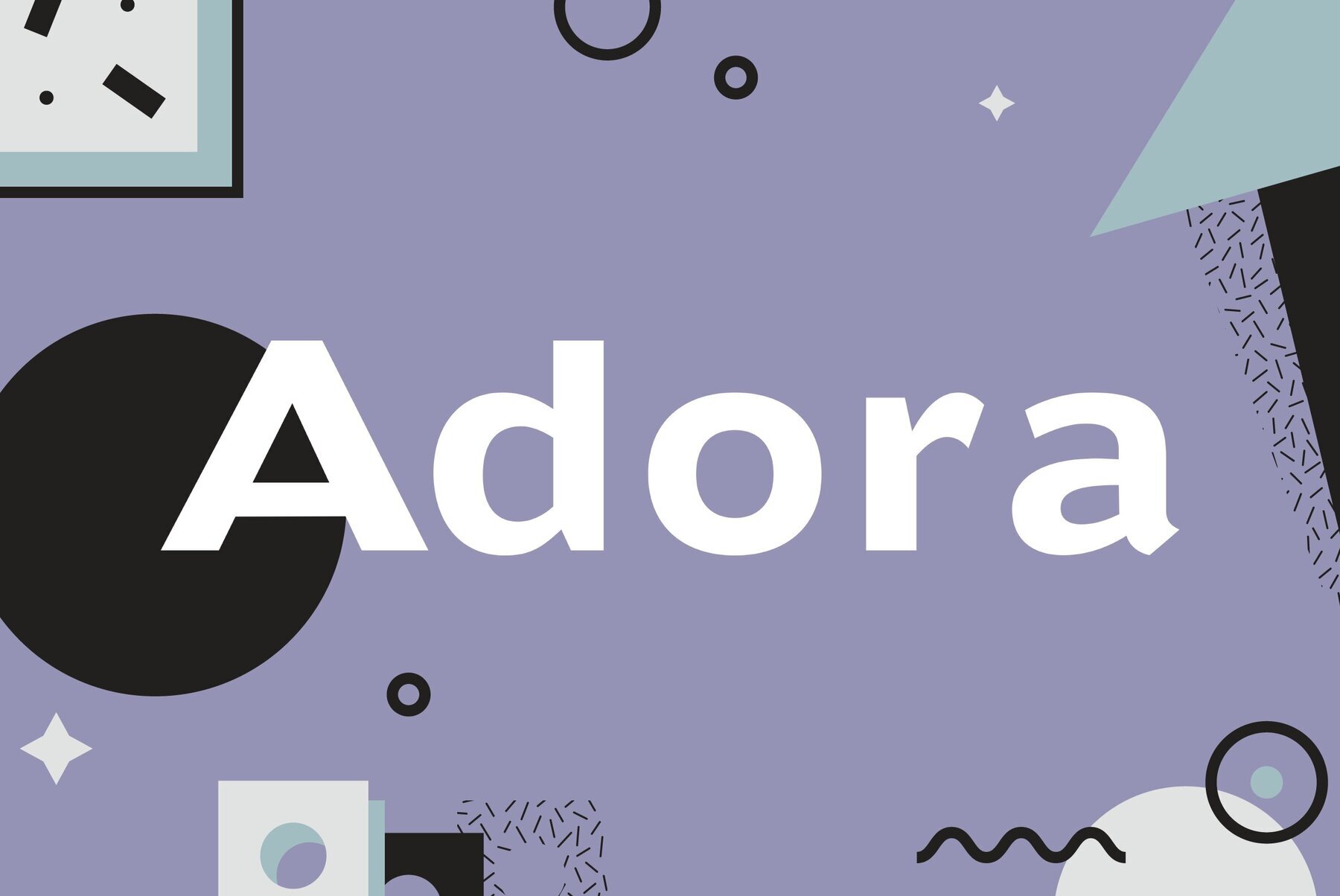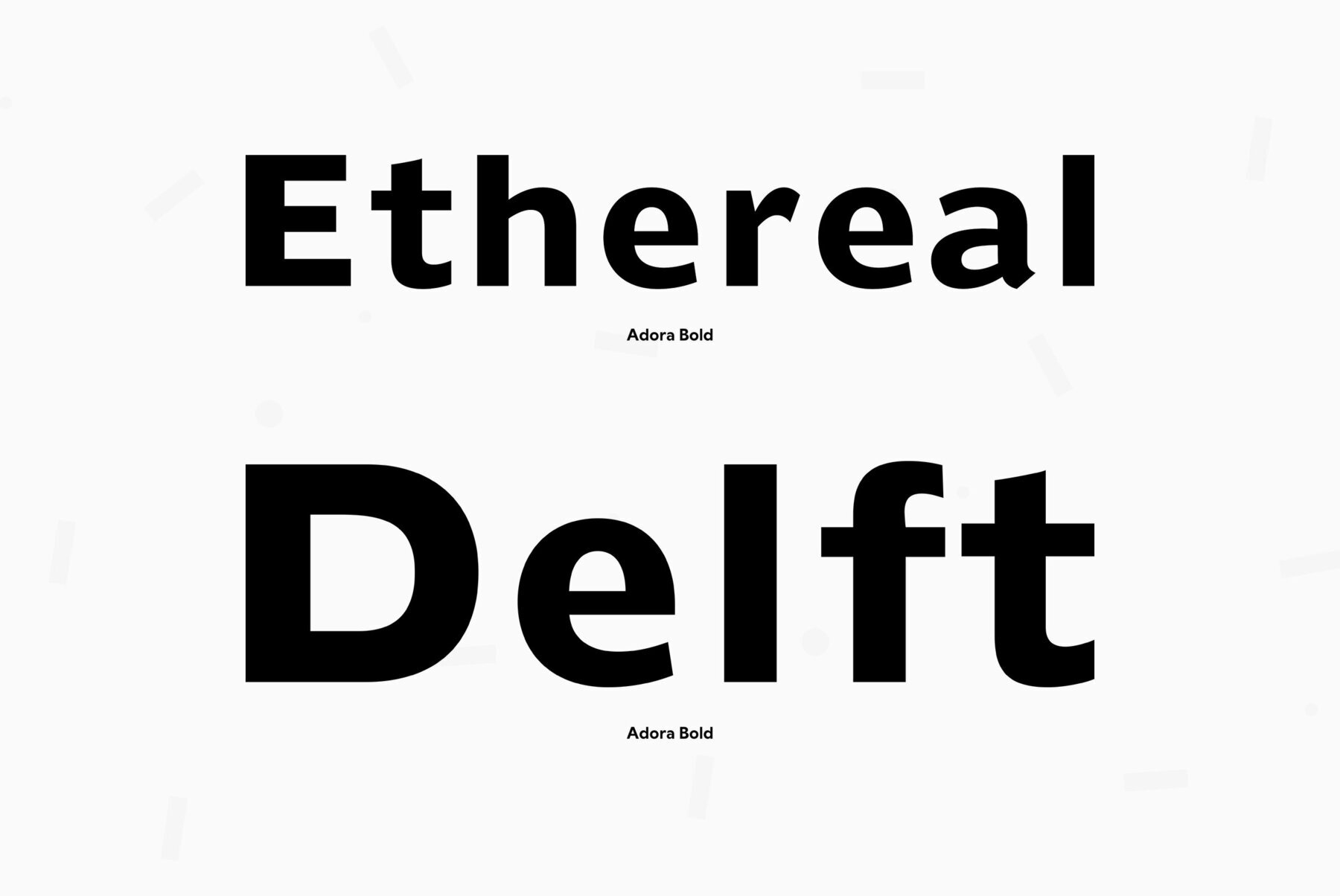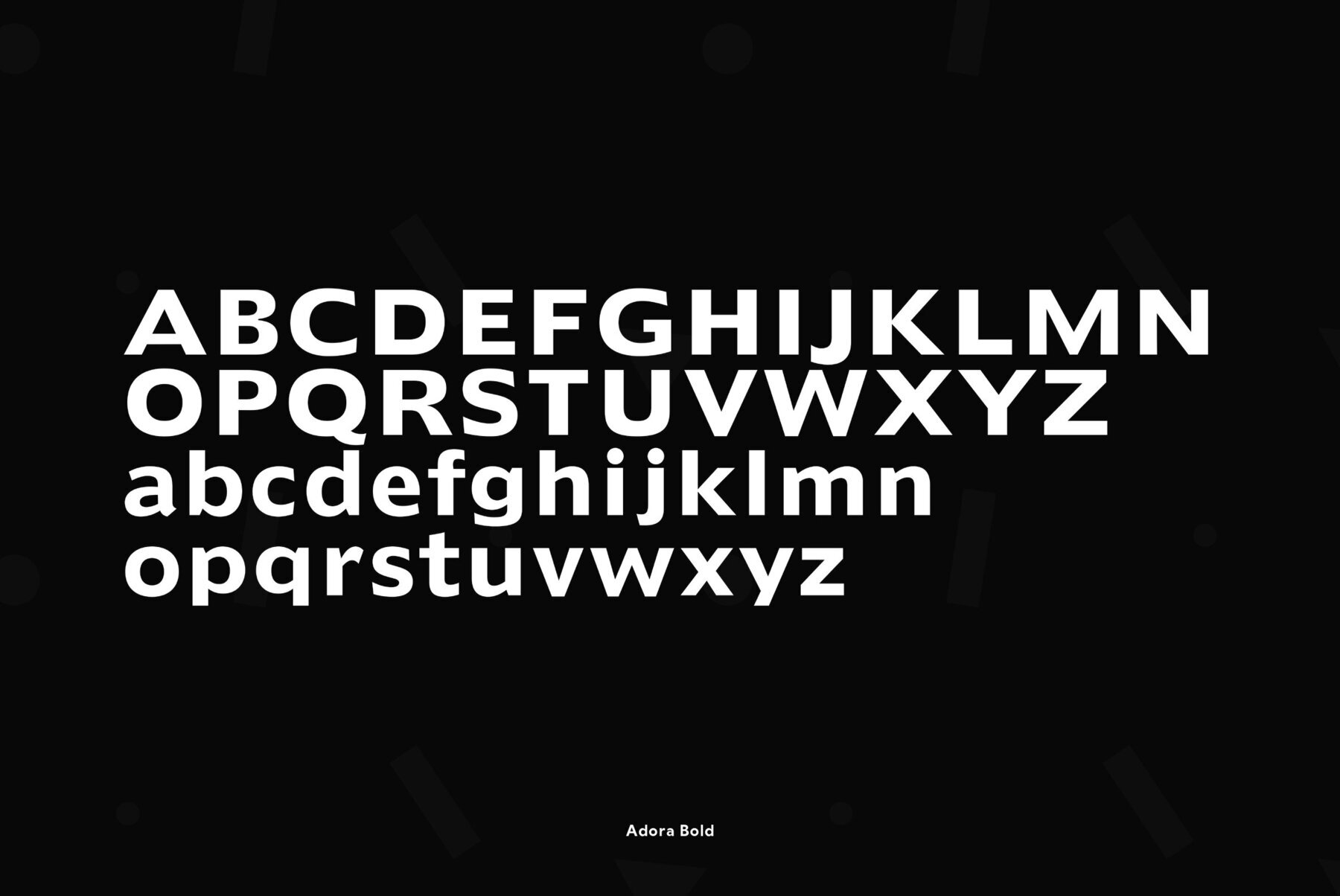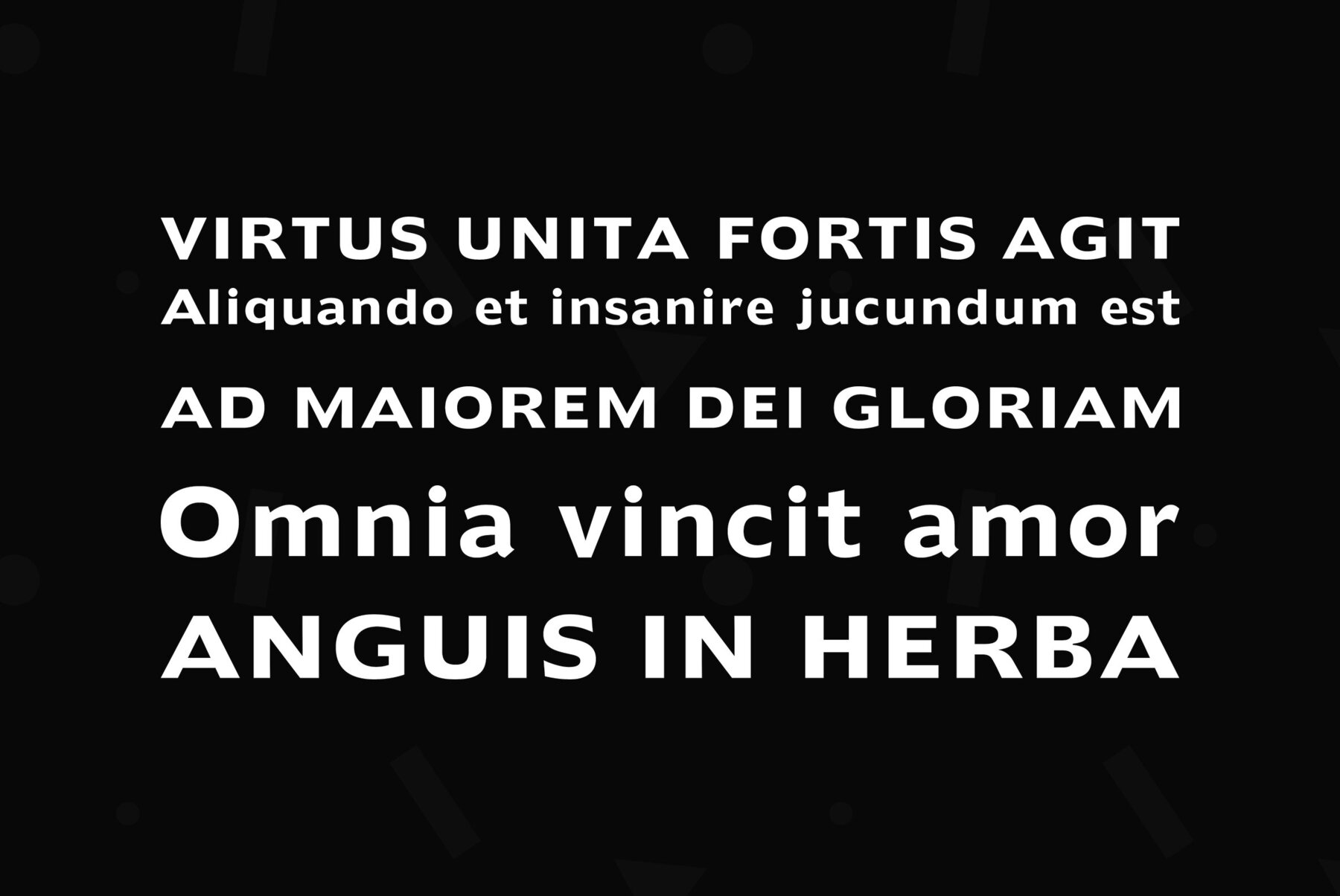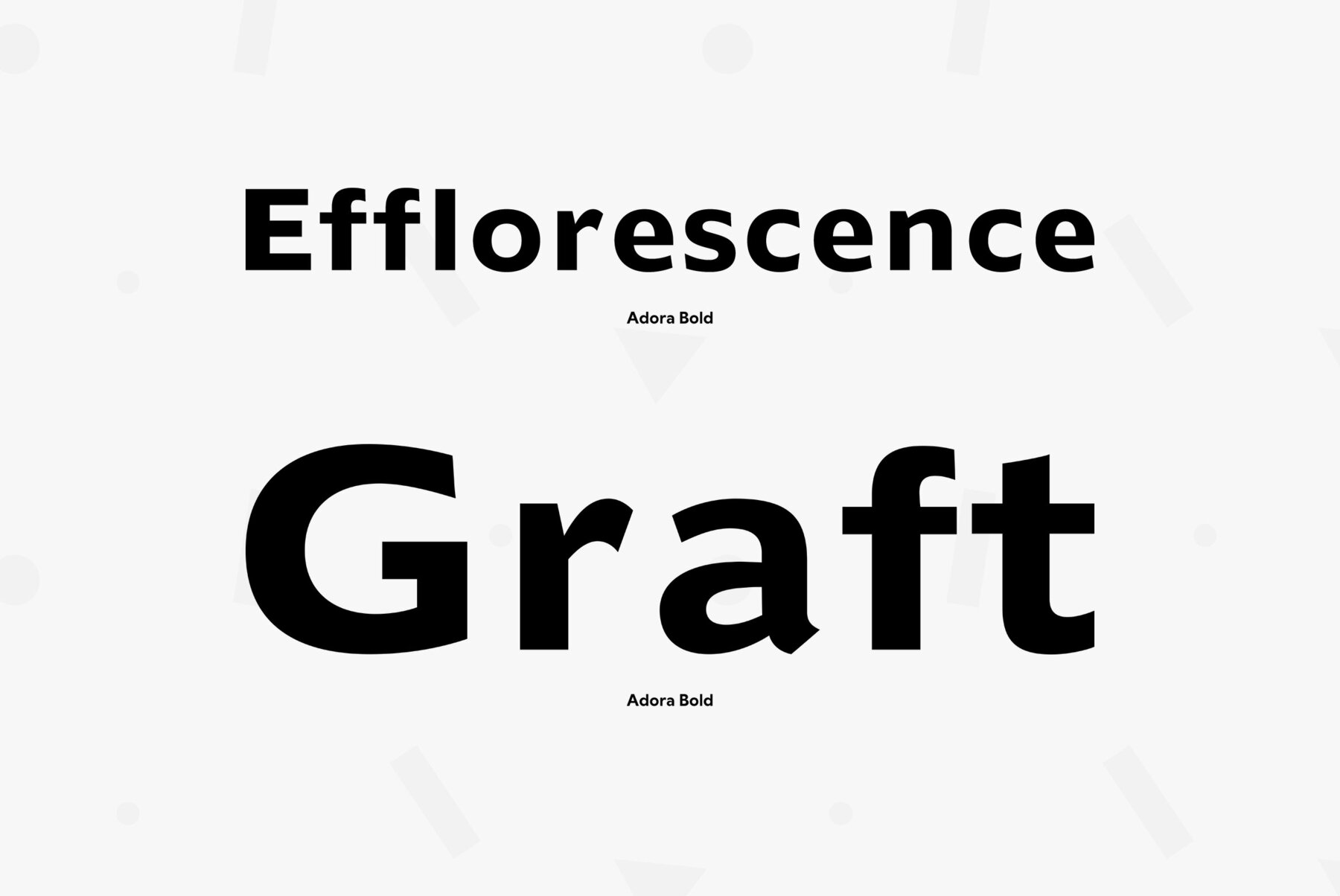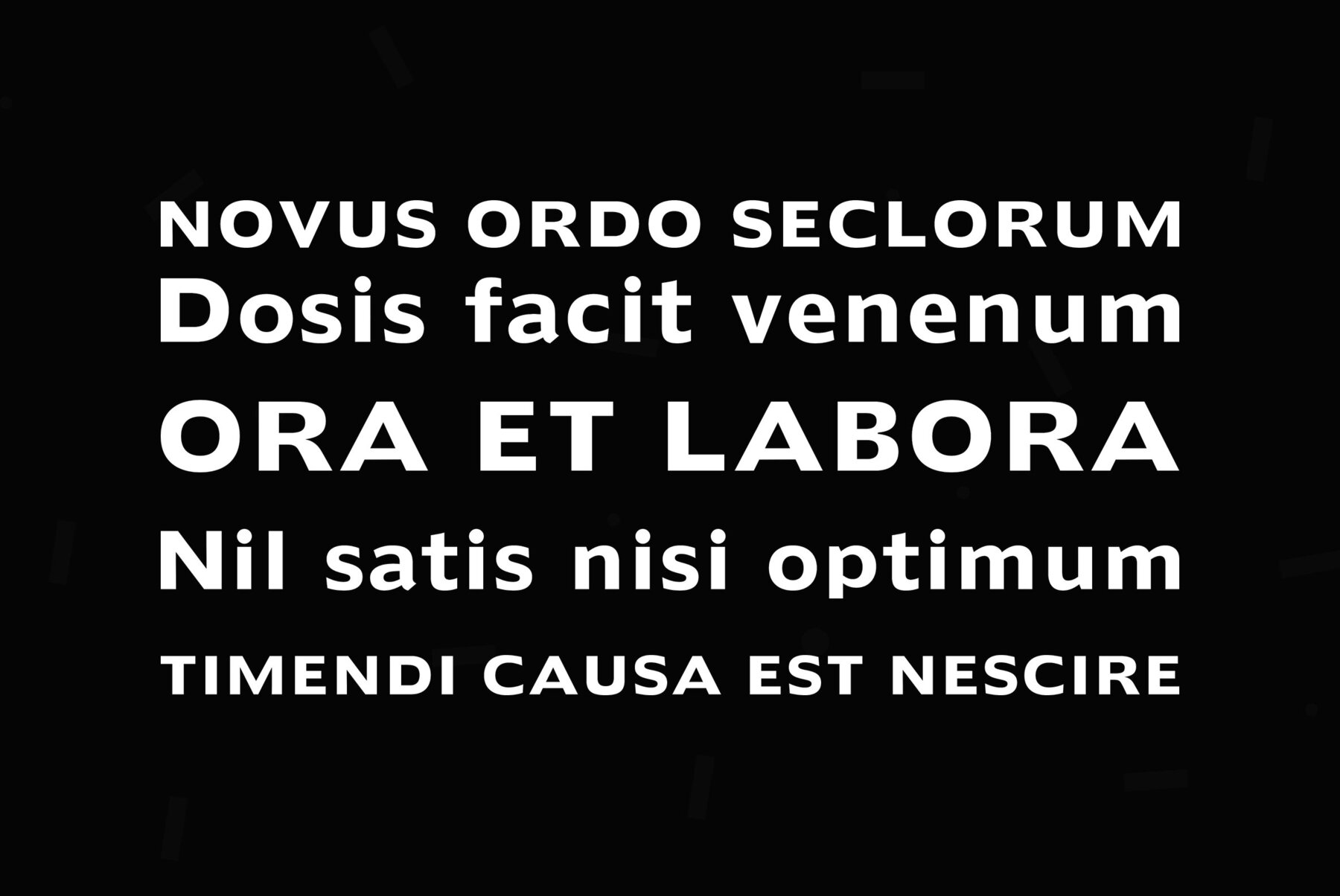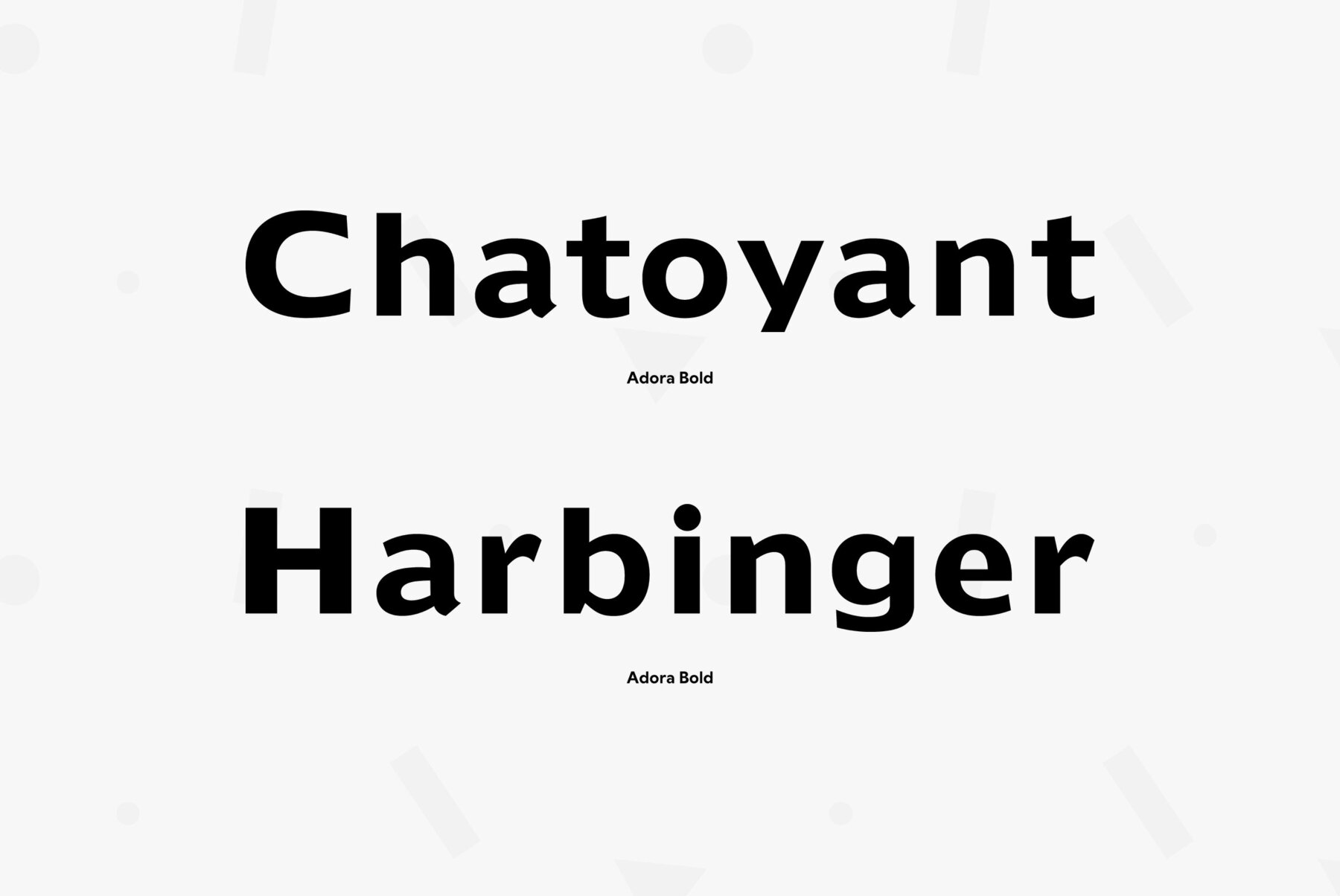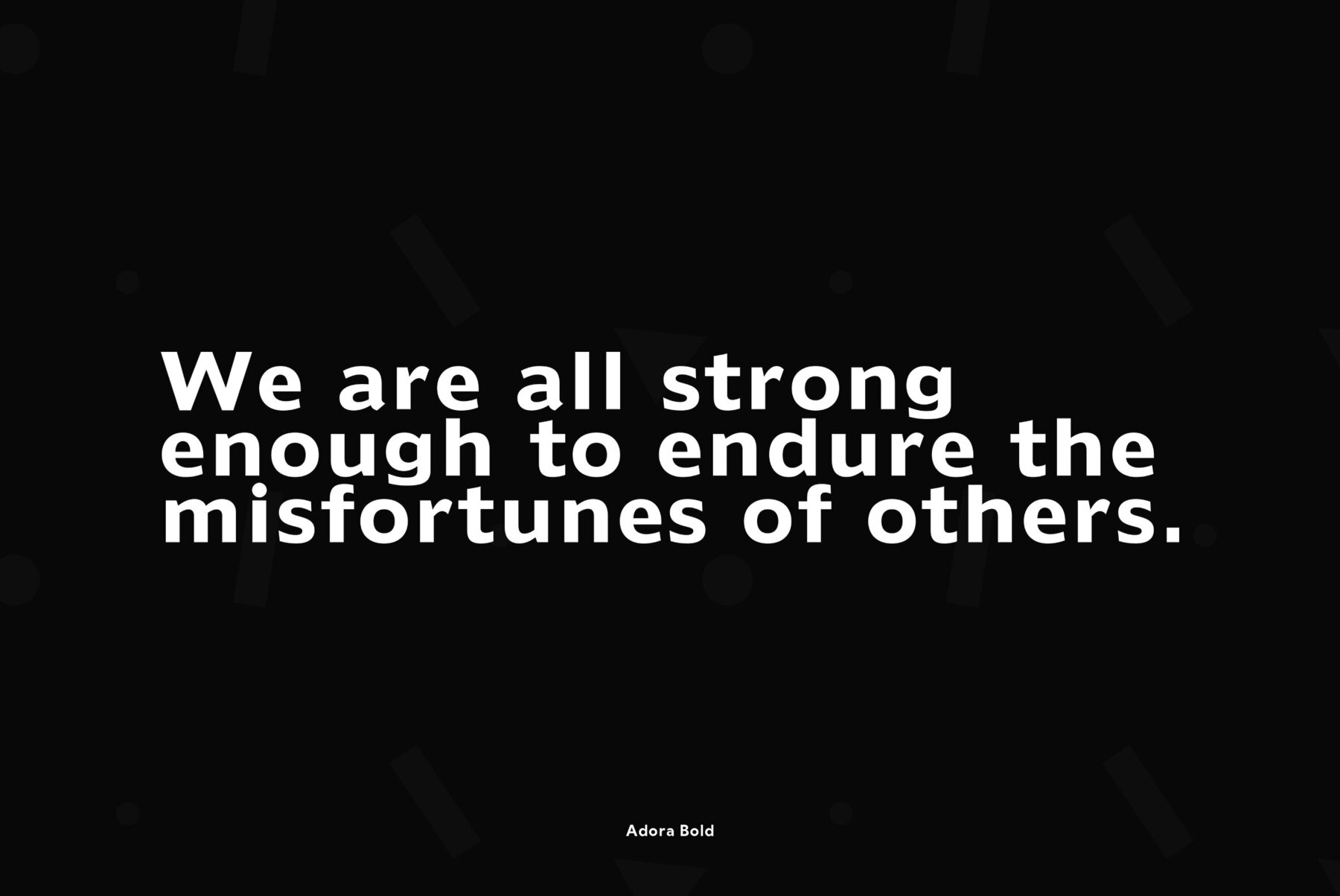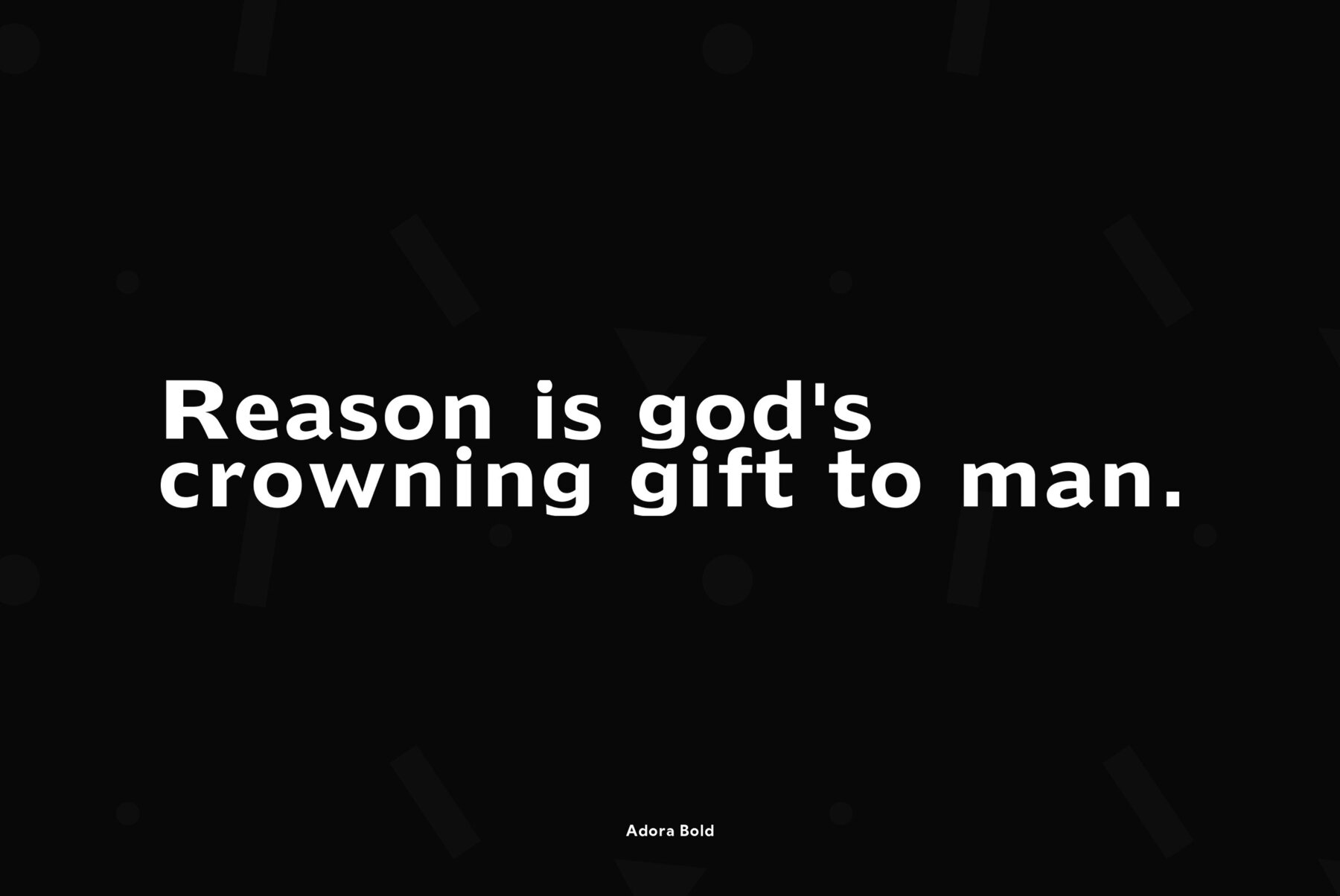
Adora Bold
Foundry: Wordshape
Walter Tracy’s AdSans has been enjoying a resurgence in popularity over the past decade, in no small part from the digital revivals employed by Dutch designer Karel Martens. Adora is a revival of Tracy’s design, but with more attention paid to spacing and kerning for smooth text setting. It has a large x-height and reads well at small point sizes. A range of ligatures have been created for smooth text-setting and detailed display work. Two modular pattern characters are included, custom-spaced so that designers can create seamless patterns to accompany typography using Adora, or to be used as a standalone design feature.